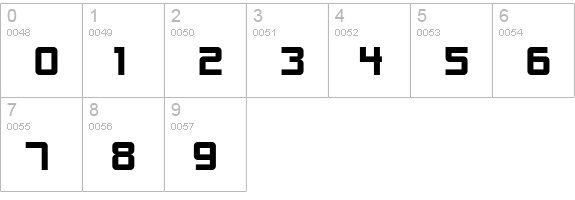
SF Alien Encounters Solid Font Details
SF Alien Encounters Solid is an otherworldly and captivating font that transports you to the depths of outer space. Its unique design, inspired by alien civilizations and intergalactic technologies, brings a sense of mystery and fascination to any project. This font is perfect for science fiction-themed designs, futuristic branding, or adding an extraterrestrial touch to your artwork. The solid and bold nature of SF Alien Encounters Solid commands attention, making it an ideal choice for headlines, titles, and logos. Its clean lines and distinct shapes give it a modern and edgy feel, while still maintaining readability. Whether you're creating a poster for a sci-fi movie, designing a book cover for a thrilling space adventure, or simply want to add an otherworldly touch to your website, this font will make your design stand out. One of the best features of SF Alien Encounters Solid is that it is freely available to download at FontsMarket.com. This means you can easily access this incredible font without any cost, making it an excellent choice for designers on a budget or anyone looking to add a touch of extraterrestrial flair to their projects. With its wide range of characters, including uppercase letters, lowercase letters, numbers, and punctuation marks, SF Alien Encounters Solid offers versatility and flexibility in your design process. So, whether you're an avid science fiction fan, a graphic designer, or simply someone who loves to explore the unknown, SF Alien Encounters Solid is the perfect choice for adding a touch of otherworldly intrigue to your creations. Download it for free at FontsMarket.com and embark on a journey to the outer reaches of imagination.